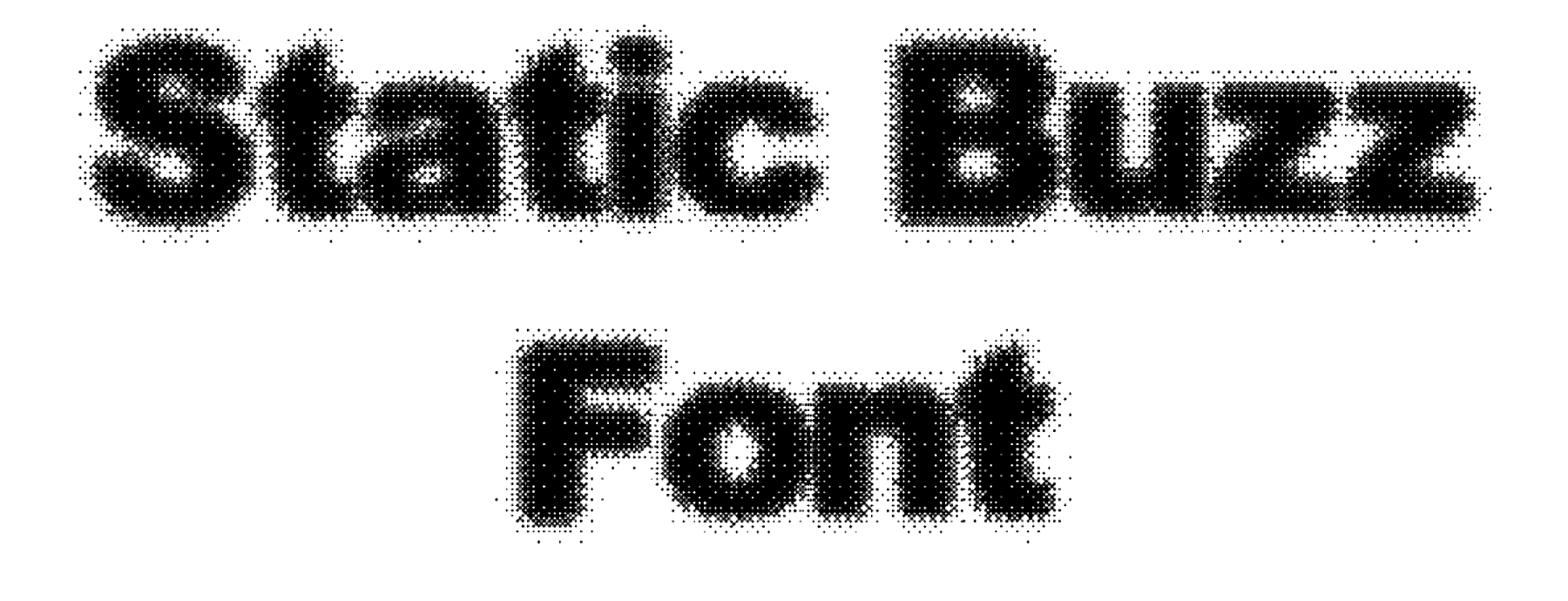
Static Buzz
- Designer: Anfa
- Year: 2010 (from the copyright line in the font)
What You Can Type With Static Buzz
With complete upper and lowercase letters and all ten digits, Static Buzz is ready for real wording, not just a single headline. Everyday marks like &, !, ? and @ are there too. Thanks to its accented letters, it also works for Spanish, French, German, Portuguese and Italian, not just English. On top of that, it includes Greek and Cyrillic characters.
Where Static Buzz Works Best
Static Buzz is a natural fit for posters, logos and eye-catching headlines. Use it for one standout word or headline and let simpler fonts handle the rest.
Who designed Static Buzz font?
Does Static Buzz support accented letters?
Yes. Static Buzz includes the accented letters needed for Spanish, French, German, Portuguese and Italian, so it works for more than just English.